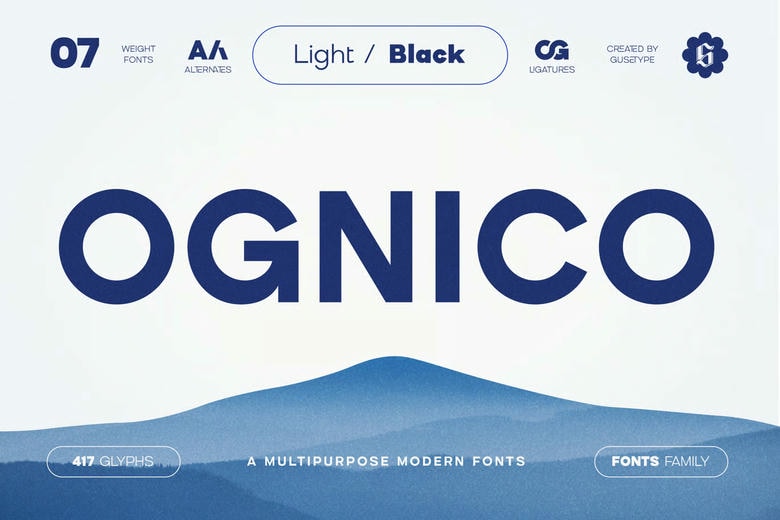
Ognico Font
Ognico Font is a futuristic modern, adaptable, and influential sans-serif typeface. It features a clean and geometric form, well-calculated proportions, and a high level of legibility in a variety of sizes. Light, Regular, Medium, Bold, Semi-bold, Extra Bold and Black is added in this font family and this gives a complete set of tools that can be used in projects such as logo creation, branding, posters, magazines, album covers and so on. Ognico provides the best option when it comes to projects whose design needs a modern and technological touch.
Ognico Sans Serif Font